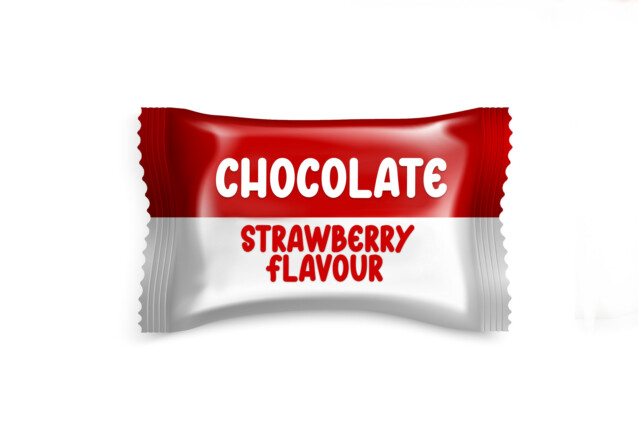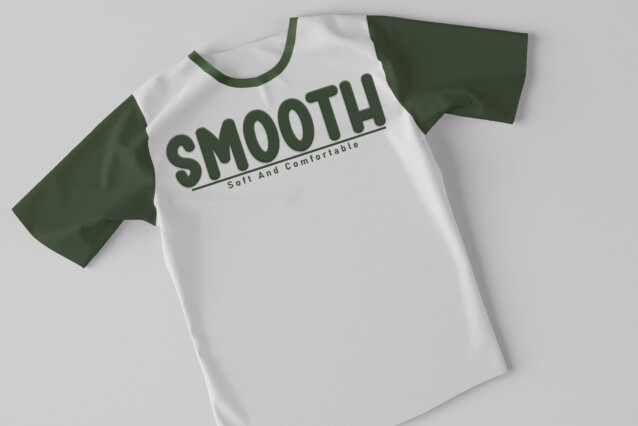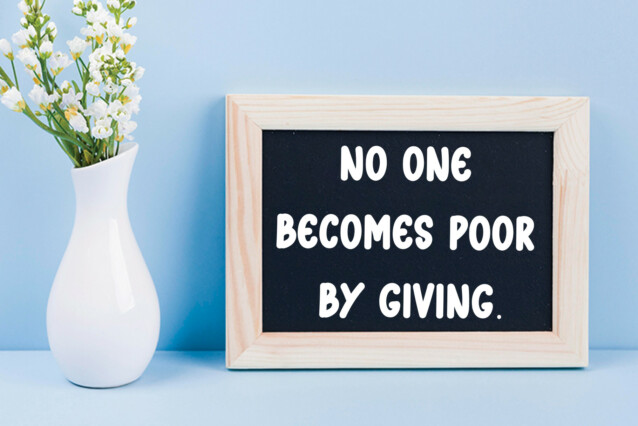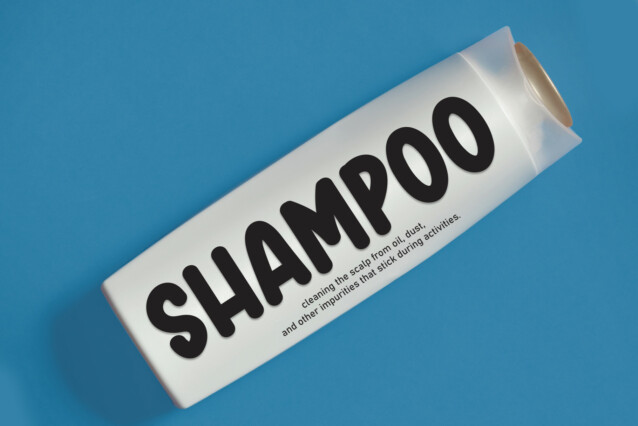
Snack Summer Display Font
Snack Summer Display Font is ideal for a variety of tasks, including Cricut crafts, logos, good notes, planners, svg files, greeting cards, t-shirts, posters, social media, teachers, and more.